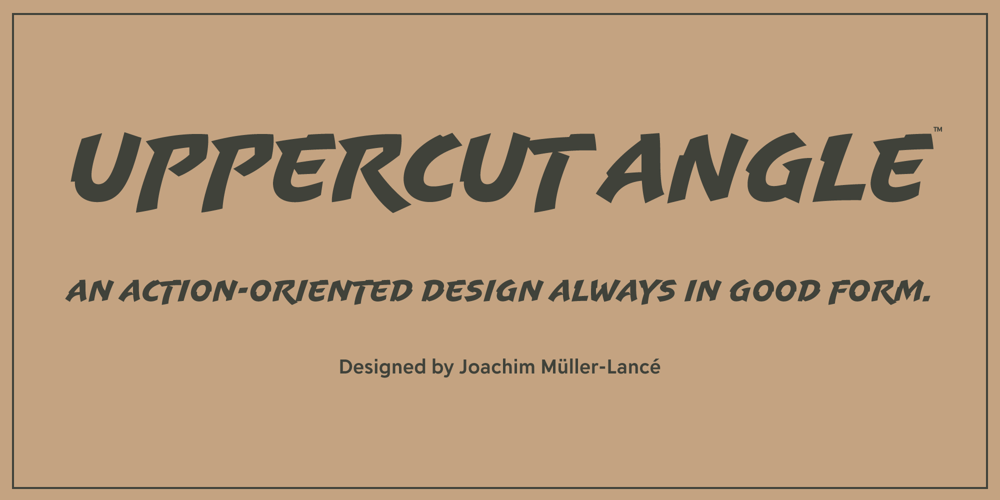
Uppercut Angle Font Family was designed by Joachim Müller-Lancé and published by Delve Fonts. Uppercut Angle contains 1 styles and family package options. Joachim Müller-Lancé’s Uppercut is a rather sporting fellow, originally developed for the Krav Maga training center of San Francisco (Krav Maga is a simple and efficient self-defense system that has become equally popular in Hollywood and with law enforcement). Joachim has spent several years training, hitting things and people whenever he needs a break from kerning. Uppercut can be seen on the school’s t-shirts and other articles. Despite bearing the same moniker as an upwards punch to the chin, the name actually fell together quite naturally as Uppercut is an all uppercase typeface, and the word “cut” is also historically used to describe a type style in hot metal type. For this slanted look, “Angle” felt just right (with thanks to Mia McHatton). The design idea sprang from pencil sketches for the center’s new identity. Uppercut’s shapes are not calligraphic or handwritten, more like lettering seen in comics or sports logos. Its brush movements are imaginary, not too literally brushy. During development, details were simplified and reduced until a bit of a cut-paper feel emerged, but more fluid like writing. The shapes are economical and efficient; simplicity makes the font versatile, holding up in small as well as big sizes. Uppercut is decidedly analog, muscular but not bulky, with the fluid but determined movements of a boxer or martial artist – not theatrical but powerful, fast, confident and dynamic. Well… it has punch. In the proportions, there is emphasis on a strong upper edge “keeping its guard up”, while several stems protrude downward, giving the impression of leaping or being “light on the feet”. Use Uppercut to pick up the pace, add snap, verve and drive – on movie posters for action and adventure, to advertise your dojo, rumble or prizefight, racing team or tuning shop, or invite friends to your barbecue with old time rock’n’roll and homemade hot pepper sauce.